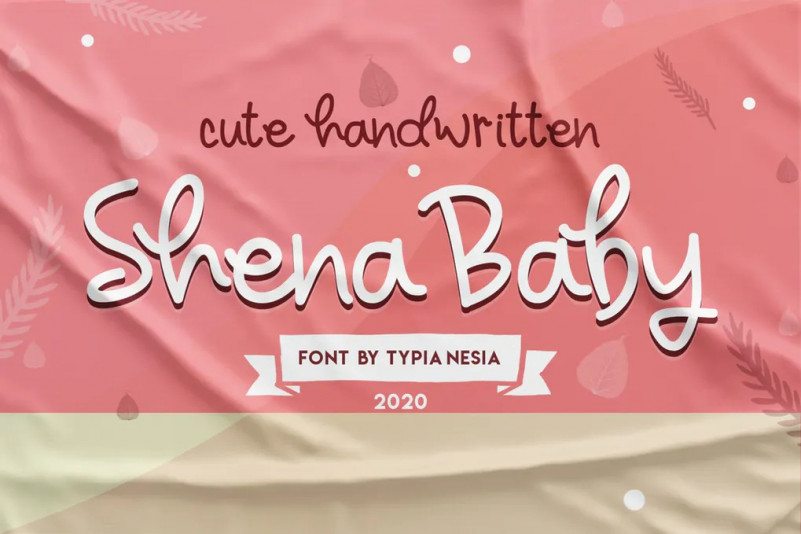
Sheyna Baby Font
Sheyna Baby is a Cute, Playful, Fun and Fancy Monoline Font.
It suitable for branding, crafting quote, t-shirt, poster, packaging, book cover, display design, cards, invitation and any cute and funny typeface needs and more.